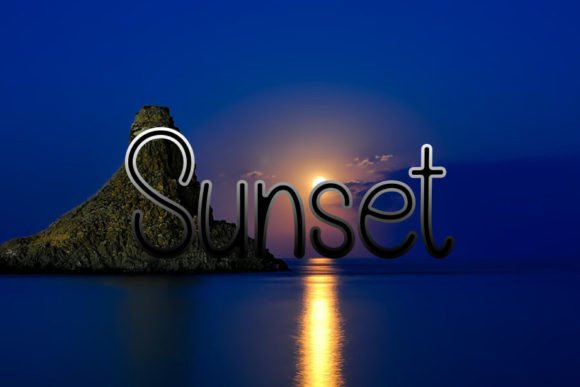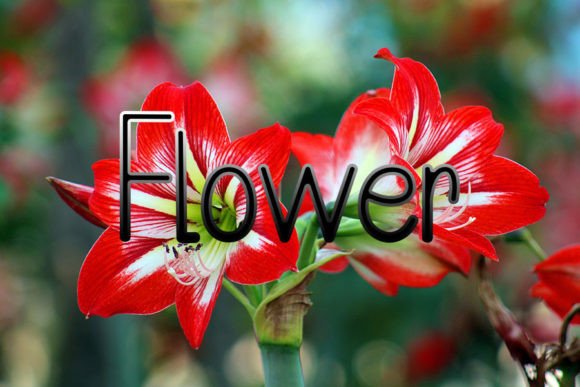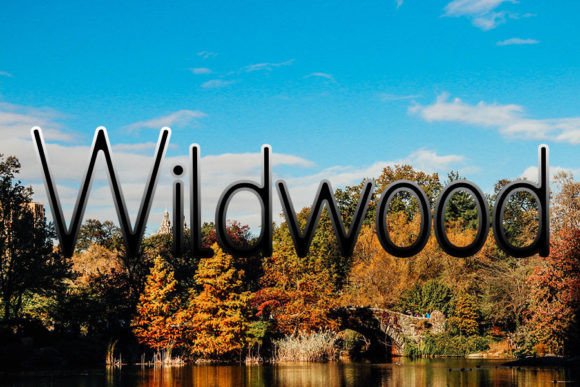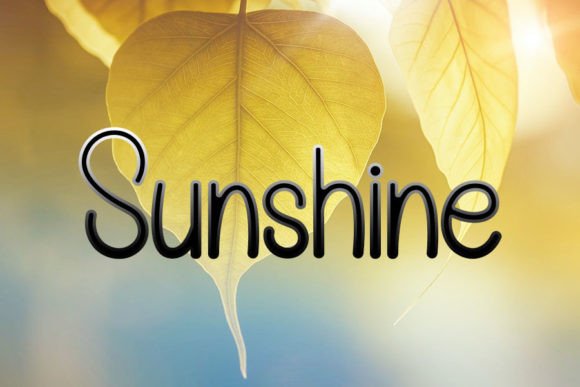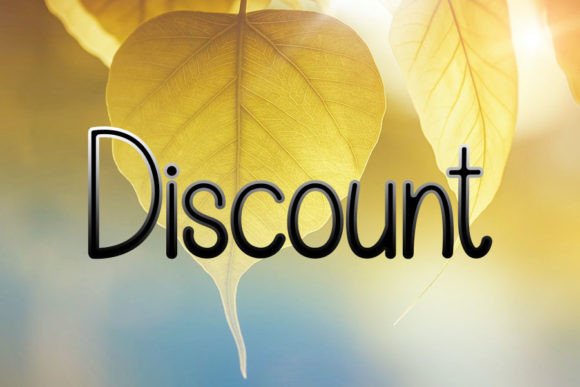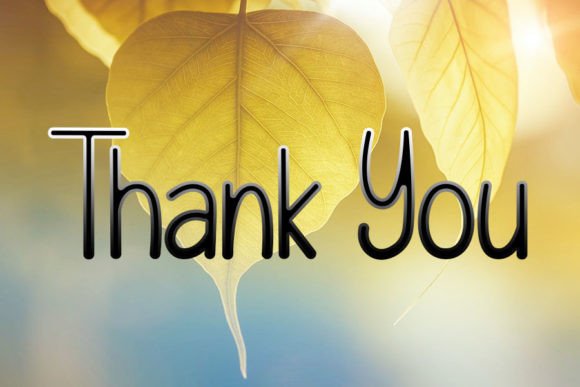
The Beautiful Font: Elevate Your Designs with Elegance and Timelessness
Are you on the hunt for a font that exudes elegance, sophistication, and a touch of handmade charm? Look no further than the Beautiful Font, a stunning handwritten typeface that is sure to capture your heart. With its distinct and timeless style, this beautiful font is perfect for designers and crafters looking to add a personal touch to their projects.
What Makes the Beautiful Font So Special?
The Beautiful Font is a neat and beautiful handwritten font that boasts an elegant touch, making it ideal for a wide range of projects, from wedding invitations and branding materials to social media graphics and digital art. Its unique charm lies in its ability to convey a sense of warmth, personality, and approachability, setting it apart from more traditional and formal fonts.
One of the standout features of the Beautiful Font is its incredible distinctiveness. In a world where fonts can often seem generic and uninspired, this beautiful font shines brightly with its own unique character and flair. Whether you’re looking to create a bold statement or a subtle impression, the Beautiful Font is sure to deliver.
The Benefits of Using the Beautiful Font
So why should you choose the Beautiful Font for your next project? Here are just a few benefits of using this gorgeous typeface:
- Elegance and Sophistication: The Beautiful Font exudes elegance and sophistication, making it perfect for high-end branding, luxury products, and special occasions.
- Timeless Style: Unlike trendy fonts that quickly go out of style, the Beautiful Font has a timeless quality that ensures your designs will remain stylish and relevant for years to come.
- Versatility: This beautiful font is incredibly versatile, and can be used for a wide range of projects, from digital designs to print materials.
- Emotional Connection: The Beautiful Font has a warm and inviting personality that helps create an emotional connection with your audience, making it perfect for projects where you want to build a strong relationship with your viewers.
How to Use the Beautiful Font in Your Designs
Who Can Benefit from the Beautiful Font?
The Beautiful Font is perfect for a wide range of designers and crafters, including:
- Graphic Designers: Whether you’re working on branding materials, social media graphics, or digital art, the Beautiful Font is a great addition to your font library.
- Wedding Planners and Stylists: This beautiful font is perfect for wedding invitations, stationery, and other wedding-related materials.
- Crafters and Makers: If you’re a crafter or maker looking to add a personal touch to your products, the Beautiful Font is a great choice.
In conclusion, the Beautiful Font is a stunning handwritten typeface that is sure to capture your heart. With its elegant touch, distinct style, and timeless quality, this beautiful font is perfect for designers and crafters looking to add a touch of sophistication and personality to their projects. So why wait? Fall in love with the Beautiful Font and start creating spectacular designs today!